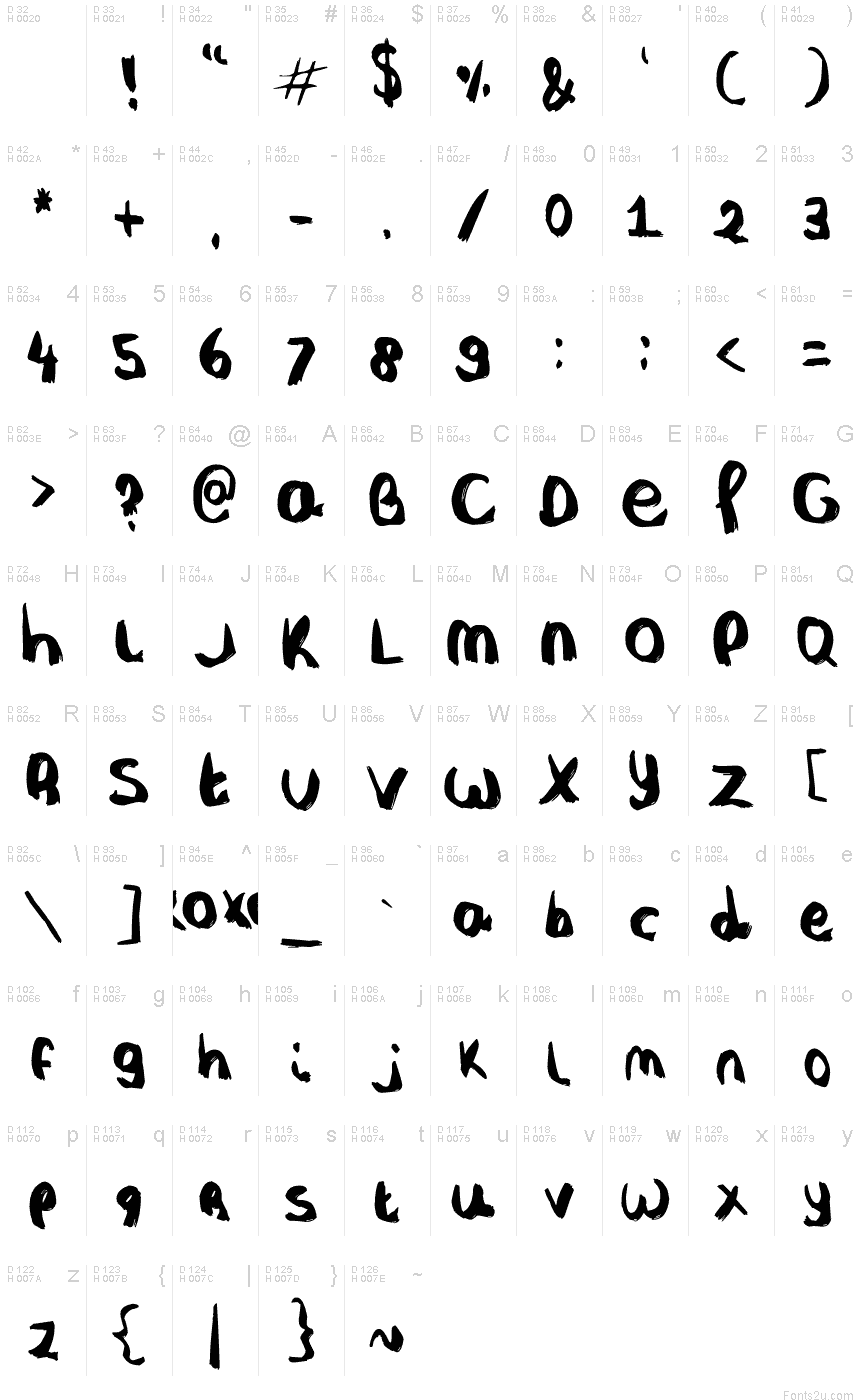
Nobody's Perfect
Nobody's Perfect is a free brush script with unruly, hand-painted strokes. Small dry-brush gaps cut through the dark forms, and the uneven curves give each letter a lively, improvised shape and bounce.
Illustrations with ink splashes, doodles, or rough-edged characters can echo this texture in music posters, skateboard merchandise, and independent magazine covers, where type becomes part of the artwork. Its blunt shapes and mischievous movement also suit children's event graphics and casual food packaging aimed at audiences who respond to energetic, handmade lettering rather than polished corporate styling.